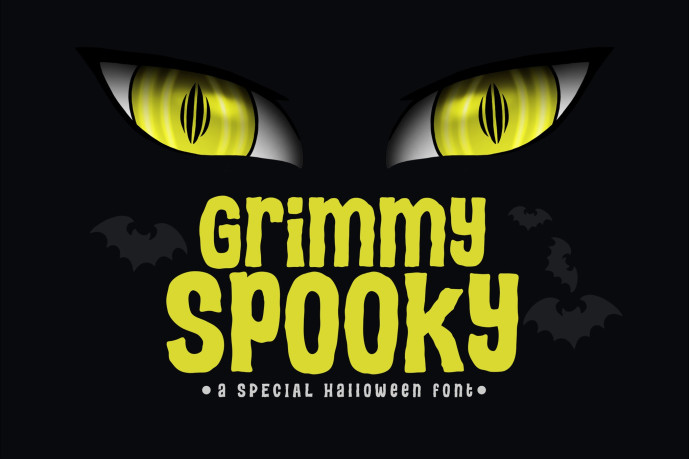
Grimmy Spooky Display Font
Grimmy Spooky Display Font is a modern horror-themed display font, crafted to bring a mysterious vibe while keeping your design trendy and eye-catching. Grimmy Spooky combines scary and stylish, making your designs not only terrifying but also unforgettable! Giving you the freedom to create without limits.
Grimmy Spooky font suitable for logo, branding, greeting card, poster and any design that you create.